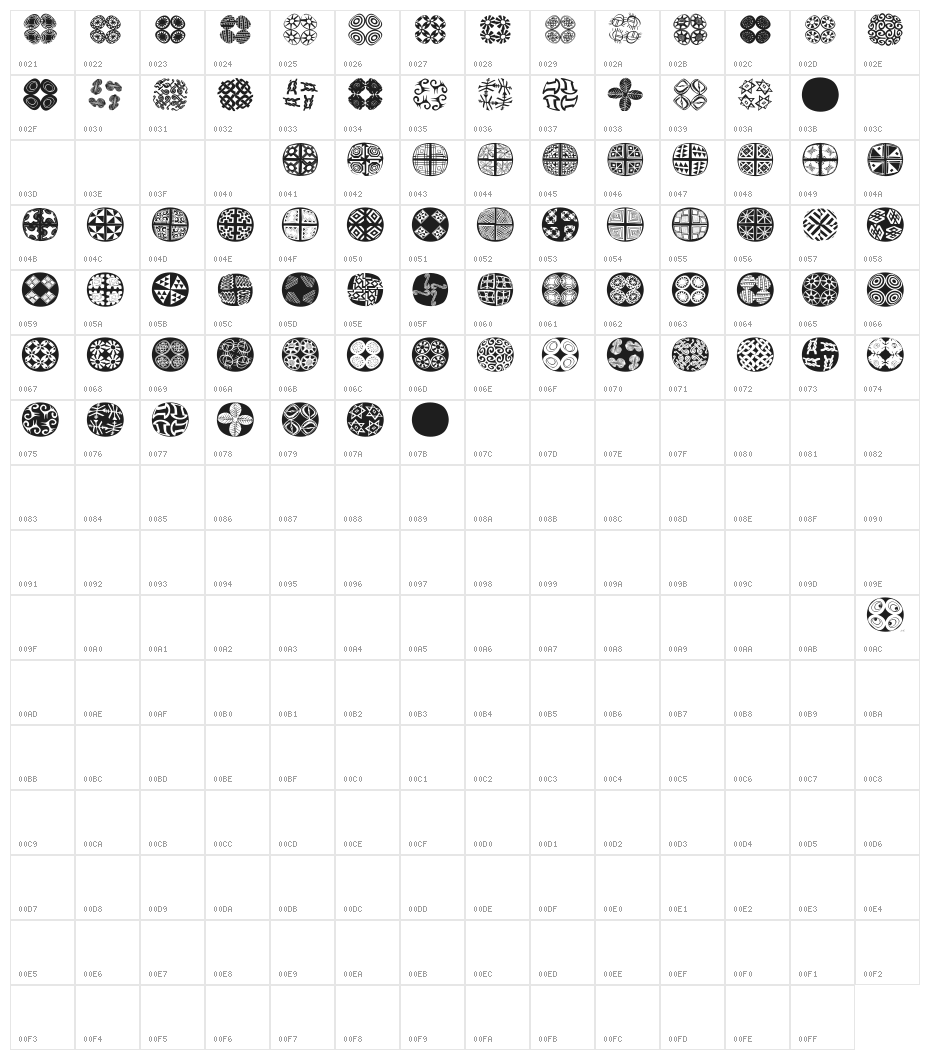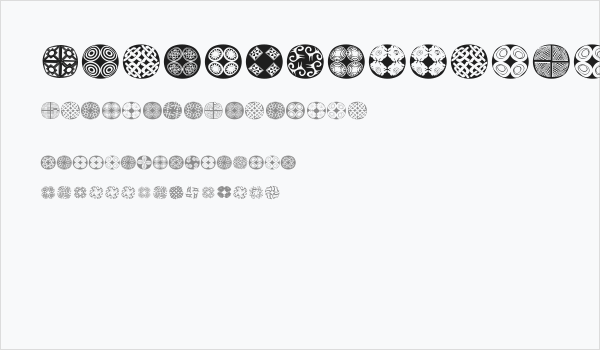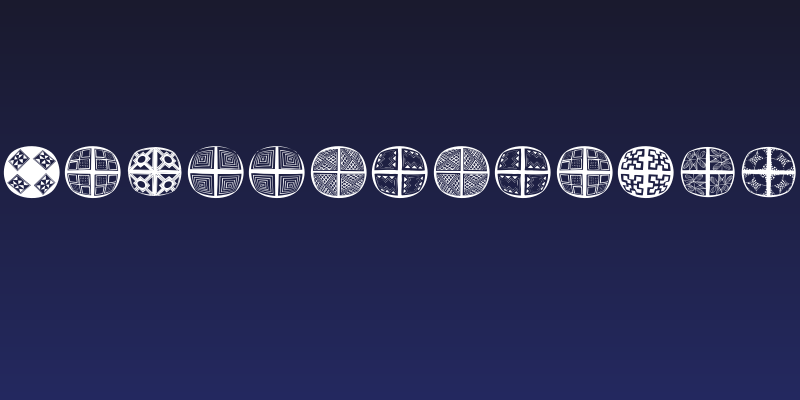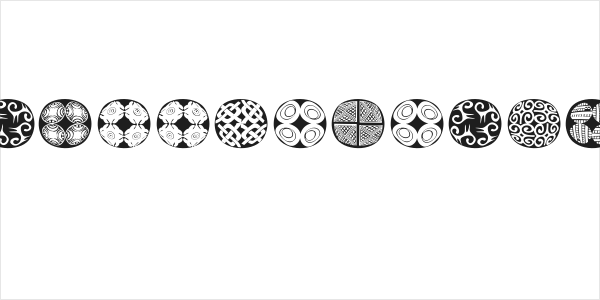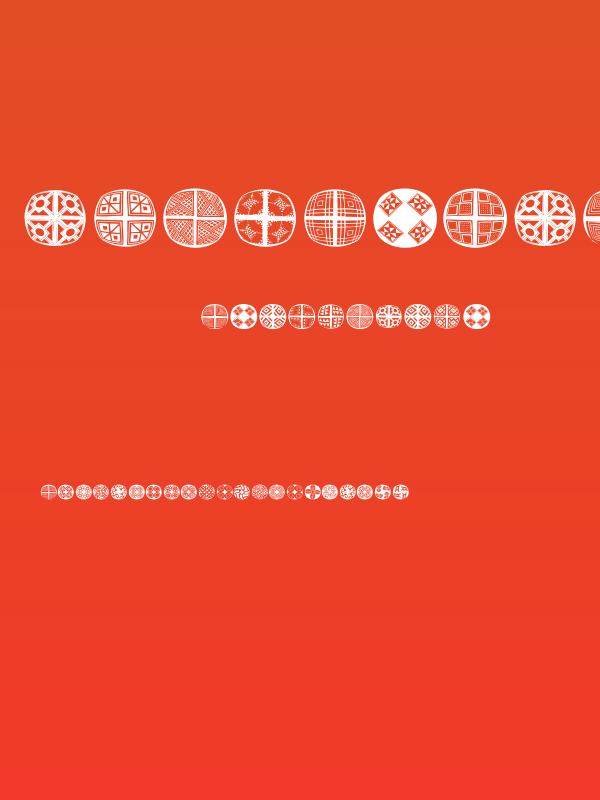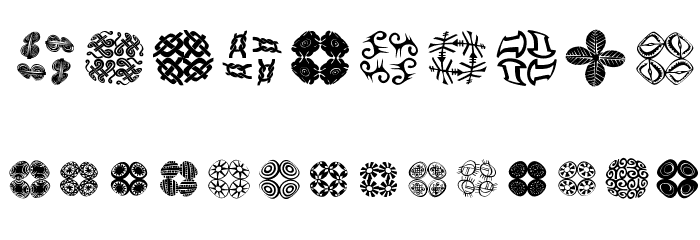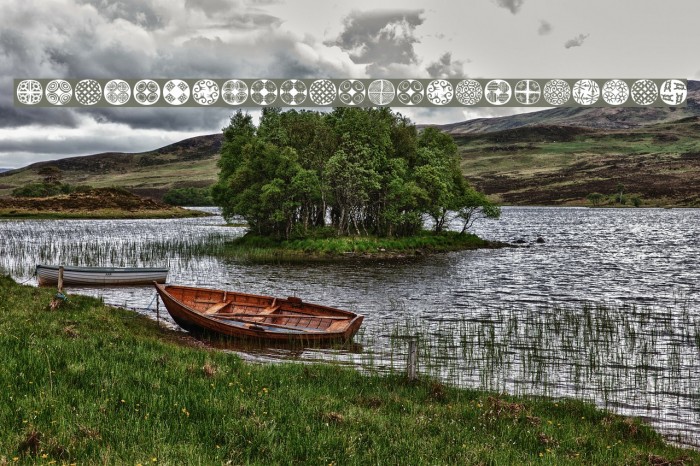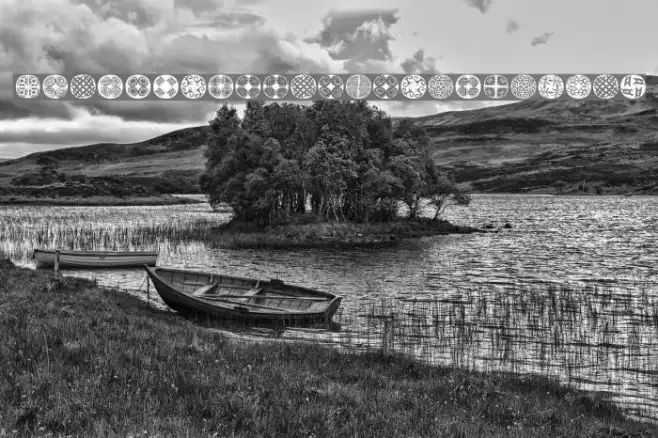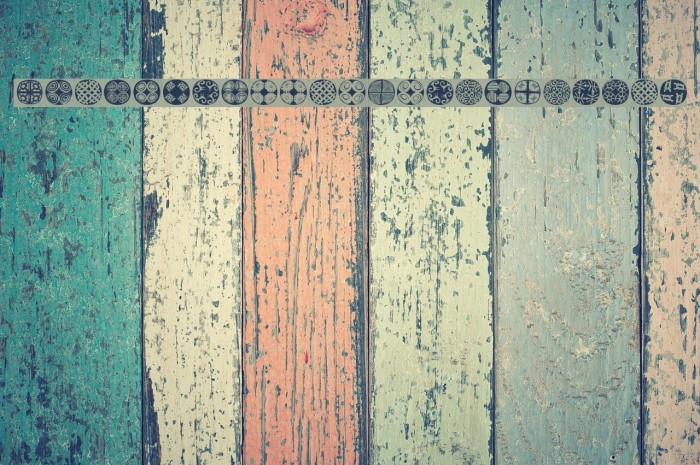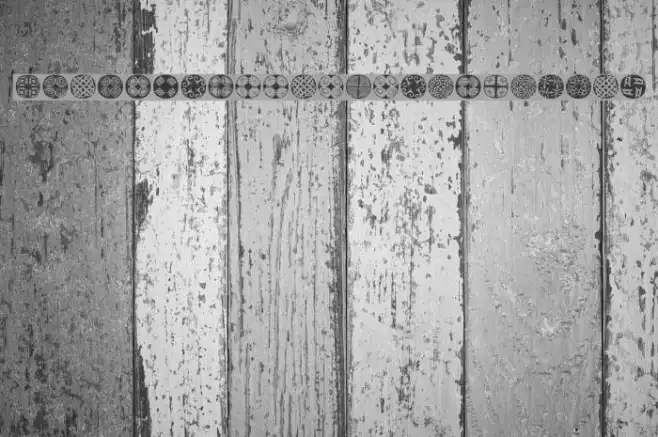
AfricQuattroRoundInvers Font
AfricQuattroRoundInvers Description
A decorative display font featuring circular glyphs with intricate, high-contrast geometric and organic patterns inspired by African motifs. Each character is enclosed in a rounded shape, with bold black and white inversions creating striking visual interest.
| Overall Style | Decorative, Ethnic, Modern |
| Use Case | Logos, Headlines, Posters, Decorative elements |
| Proposed Projects | Branding, posters, cultural event materials, packaging, textile design, album covers. |